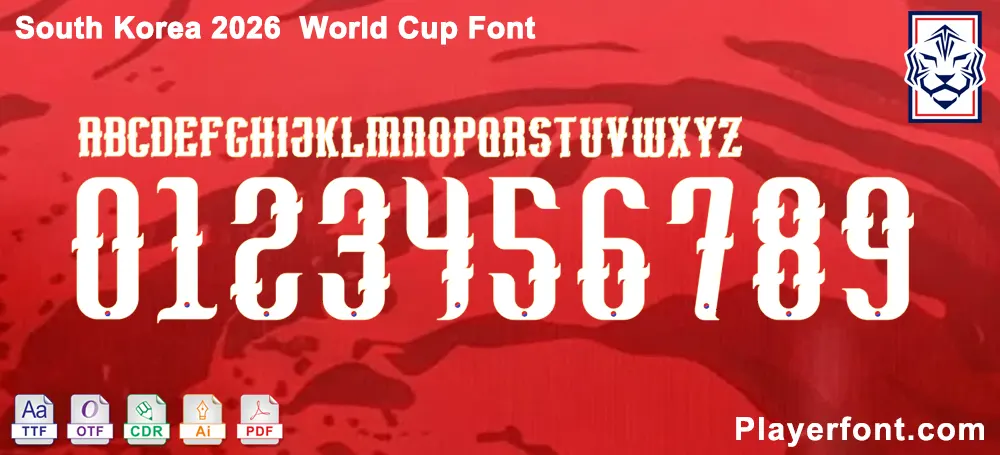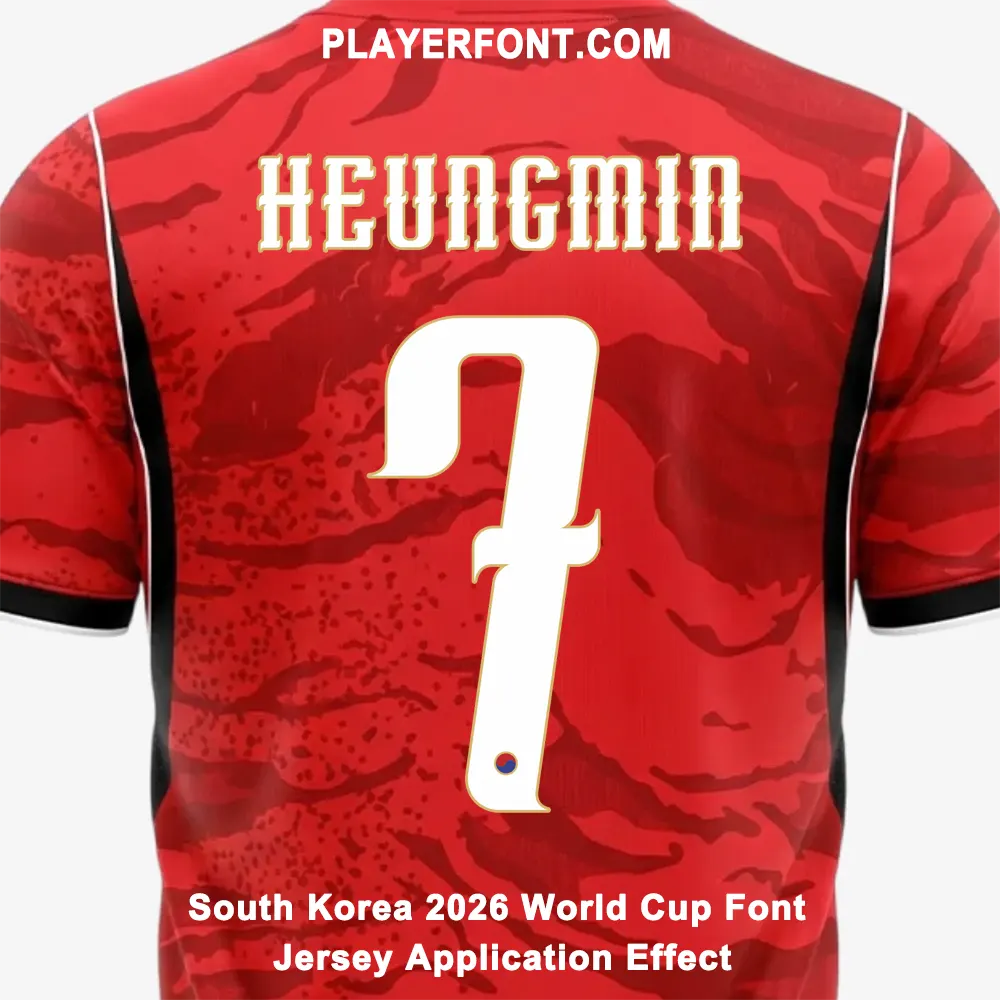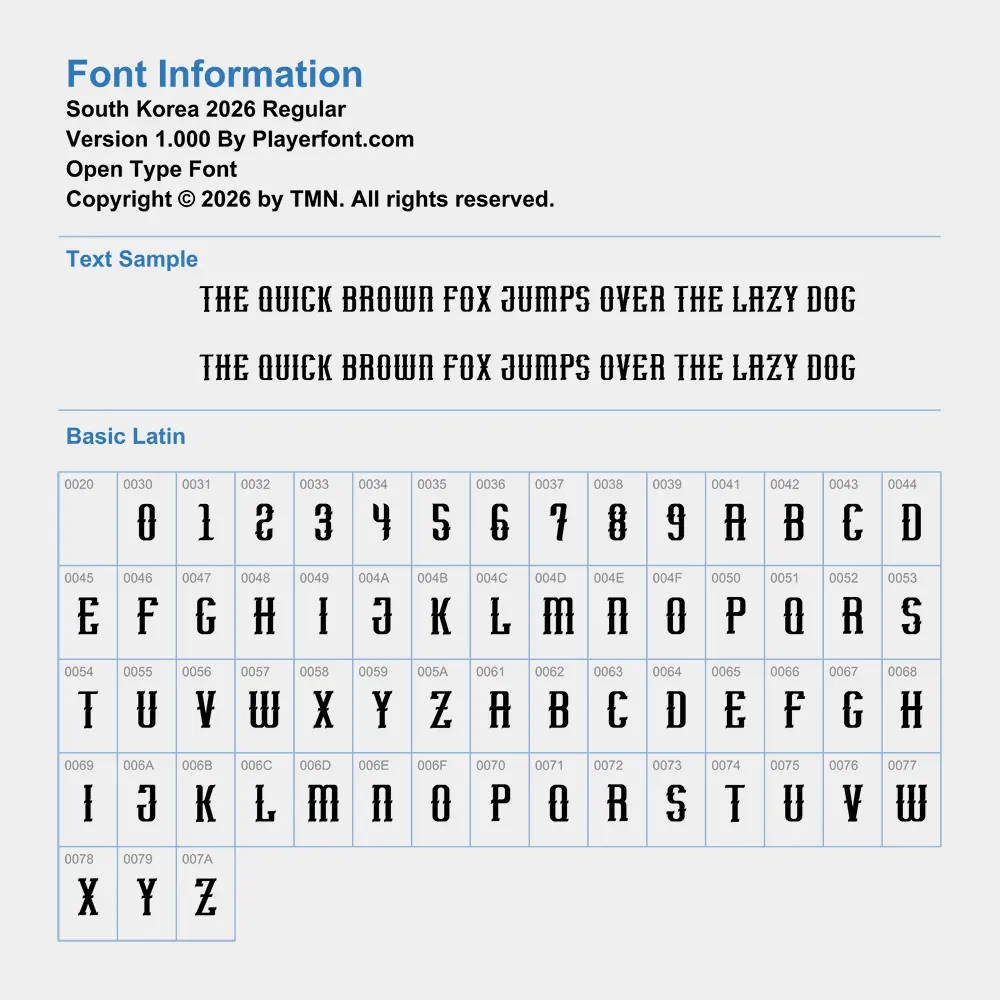
Celebrate the spirit of the “Taegeuk Warriors” with the professional-grade South Korea 2026 World Cup Font. Whether you are a graphic designer creating sports apparel or a fan looking to customize your personal kit, this font kit provides the exact aesthetic seen on the world stage.
Full Character Set: Includes all uppercase letters (A-Z) and numbers (0-9) featuring the unique 2026 design style.
Design Tip: To get the most authentic look for your 2026 South Korea kit, use the provided vector files to maintain the intricate details in the numbers, including the official-style ventilation accents.